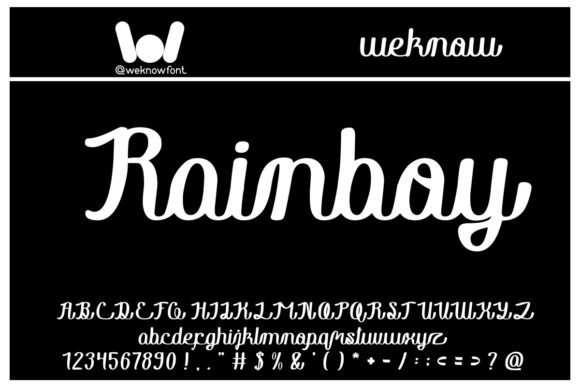
Journey into the realm of enchantment with Rainboy in Love, a script font born from the fusion of creativity and sophistication. This exquisite typeface transports you to a world of elegance and grace, where your designs blossom with a touch of magic. Let Rainboy in Love dance across your screens, capturing hearts with its delicate strokes and playful charm.
Indulge in the allure of Rainboy in Love, a font crafted for the modern visionary. Its graceful curves and sweeping lines evoke a sense of timeless beauty, while its versatility lends itself to a myriad of creative expressions. Whether you're crafting captivating logos, designing enchanting invitations, or weaving enchanting tales through digital storytelling, Rainboy in Love elevates your creations to new heights of artistry.
Unleash the power of Rainboy in Love to transform your business website into an exquisite online haven. This font's inherent elegance and charm effortlessly communicate professionalism and trustworthiness, leaving a lasting impression on your clientele. Its carefully crafted characters exude a touch of sophistication, inviting visitors to embark on a journey of discovery through your meticulously designed website.
With Rainboy in Love as your creative companion, you'll find endless opportunities to showcase your products and services in a manner that captivates and enchants. This font's innate ability to evoke emotions and create a lasting connection with your audience will propel your business to new heights of success.